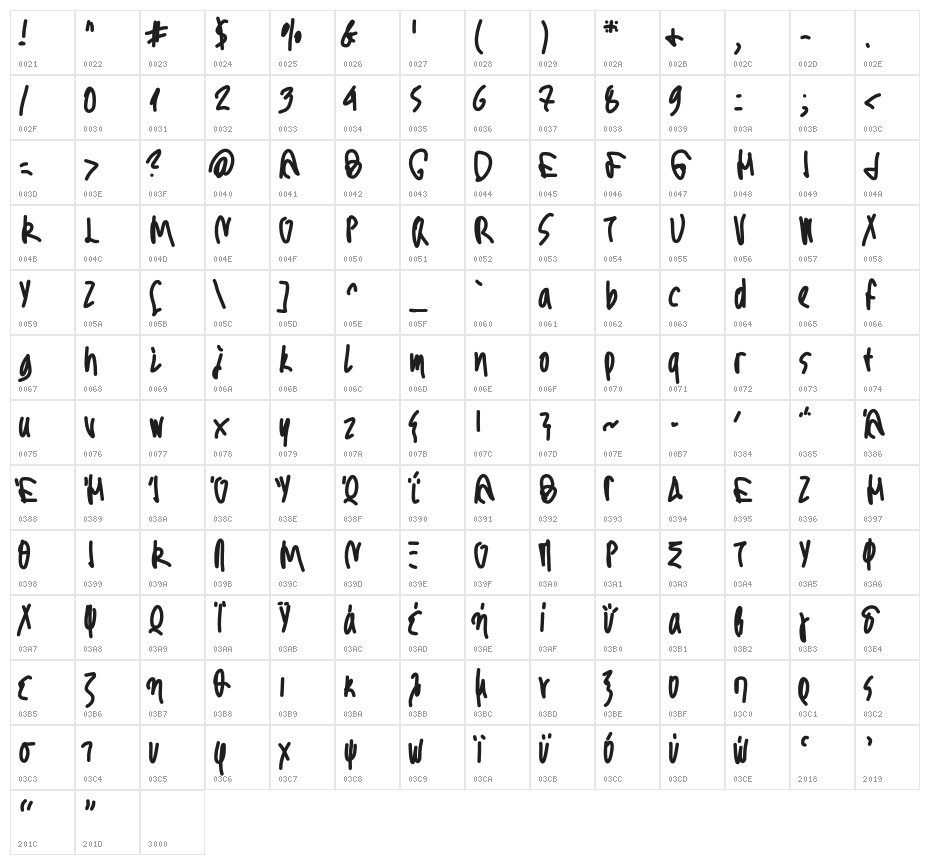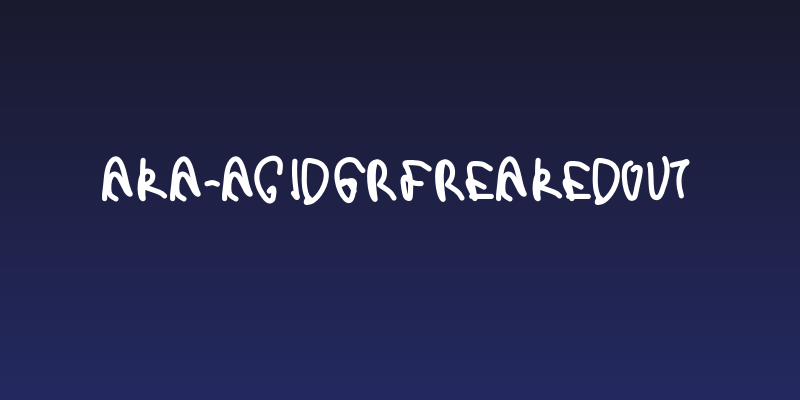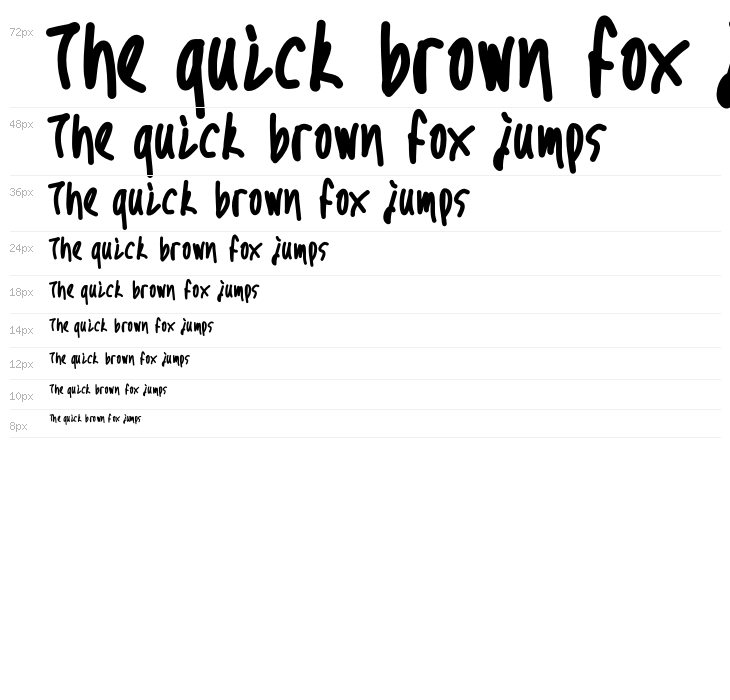
Aka-AcidGRFreakedOut Font
Aka-AcidGRFreakedOut Description
This font exudes a playful and energetic vibe, characterized by its bold and irregular strokes that give it a hand-drawn appearance. The letters are slightly slanted, adding to the dynamic feel, while the varying thickness of the strokes provides a sense of movement and spontaneity. The uppercase and lowercase letters maintain a consistent style, with rounded edges and a casual, informal look. The numerals and special characters follow the same aesthetic, ensuring a cohesive appearance across all elements. This font is perfect for projects that require a fun and lively touch.
| Proposed Projects | Ideal for children's books, comic strips, playful branding, and informal event invitations. |